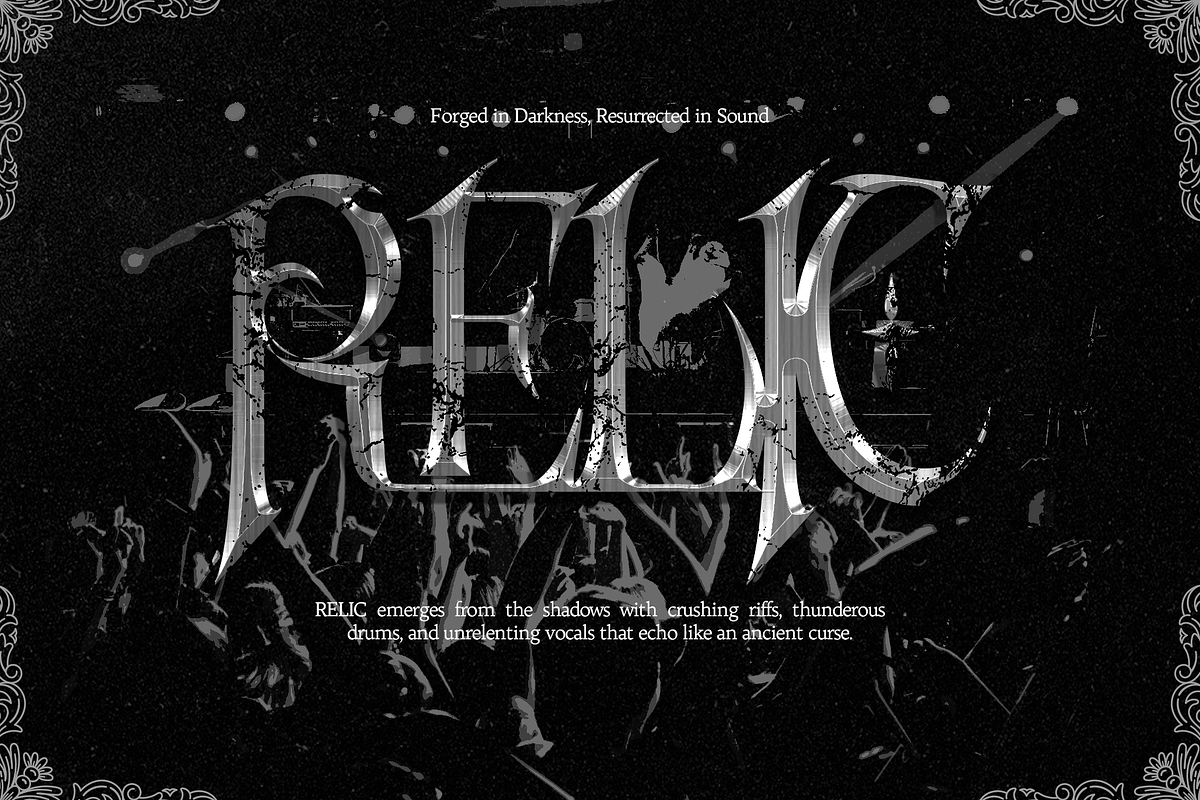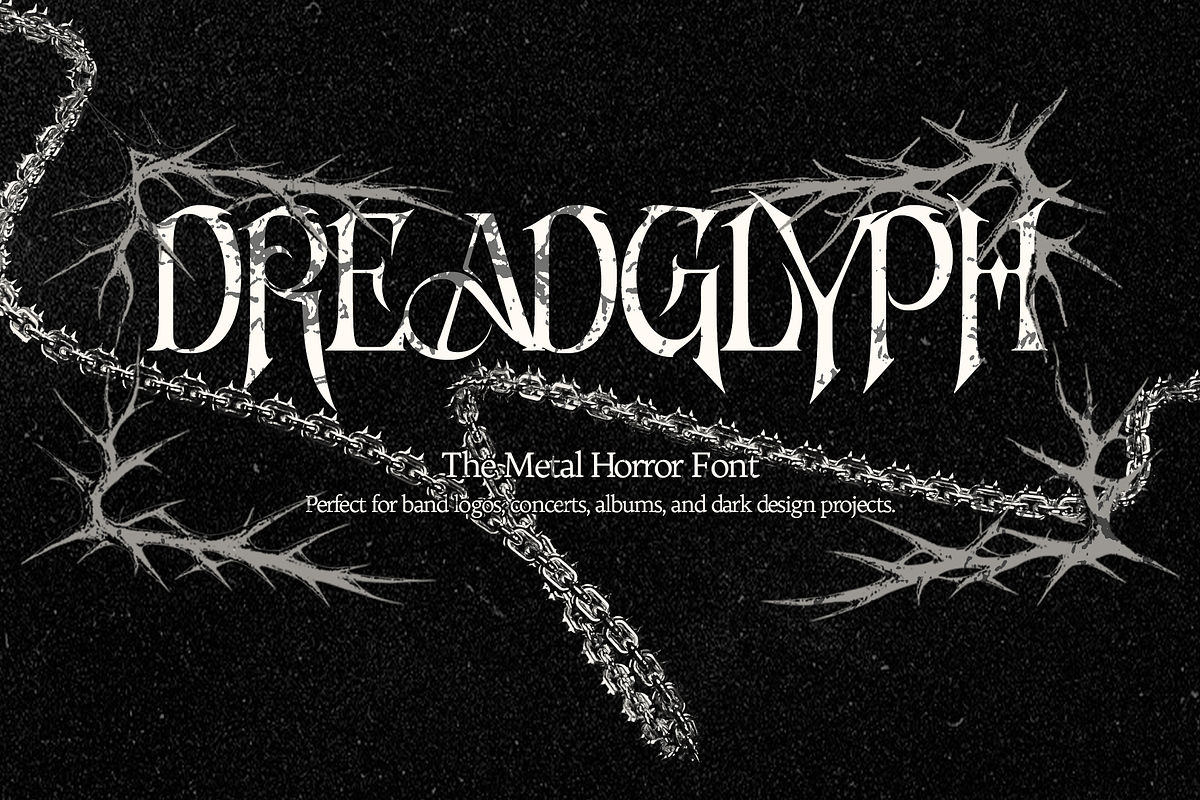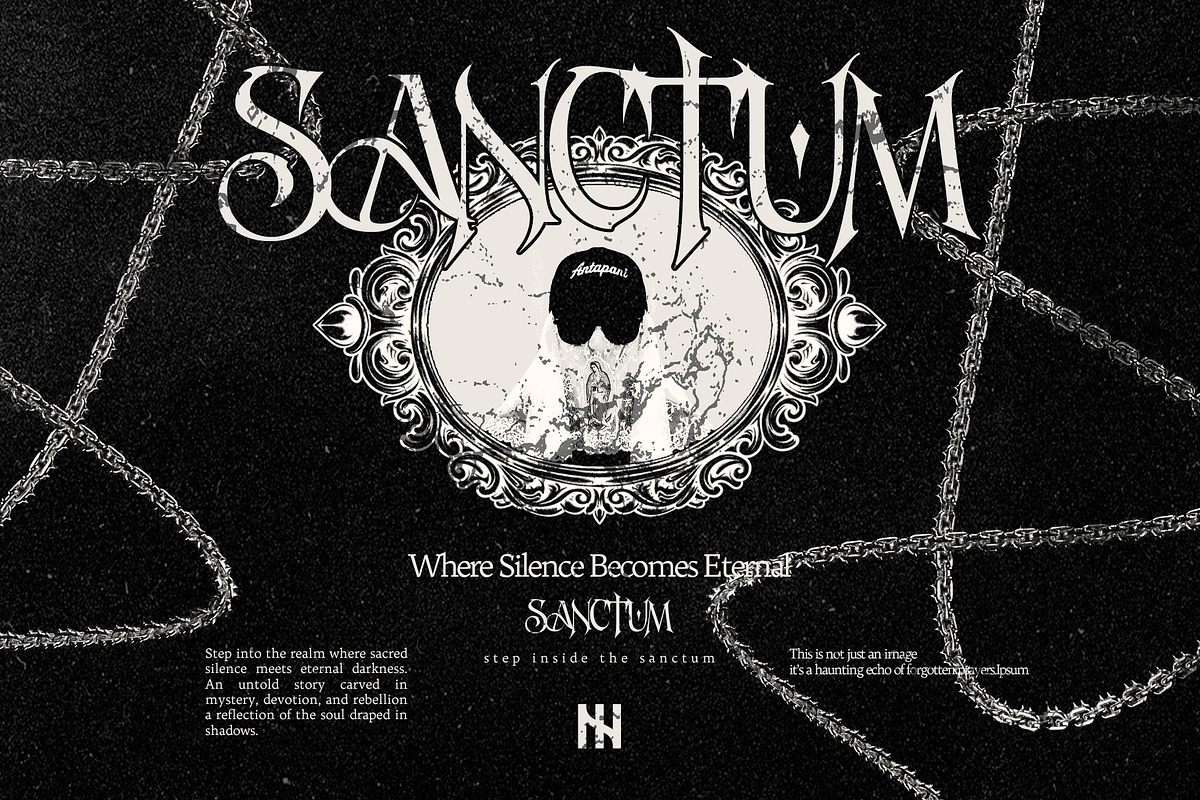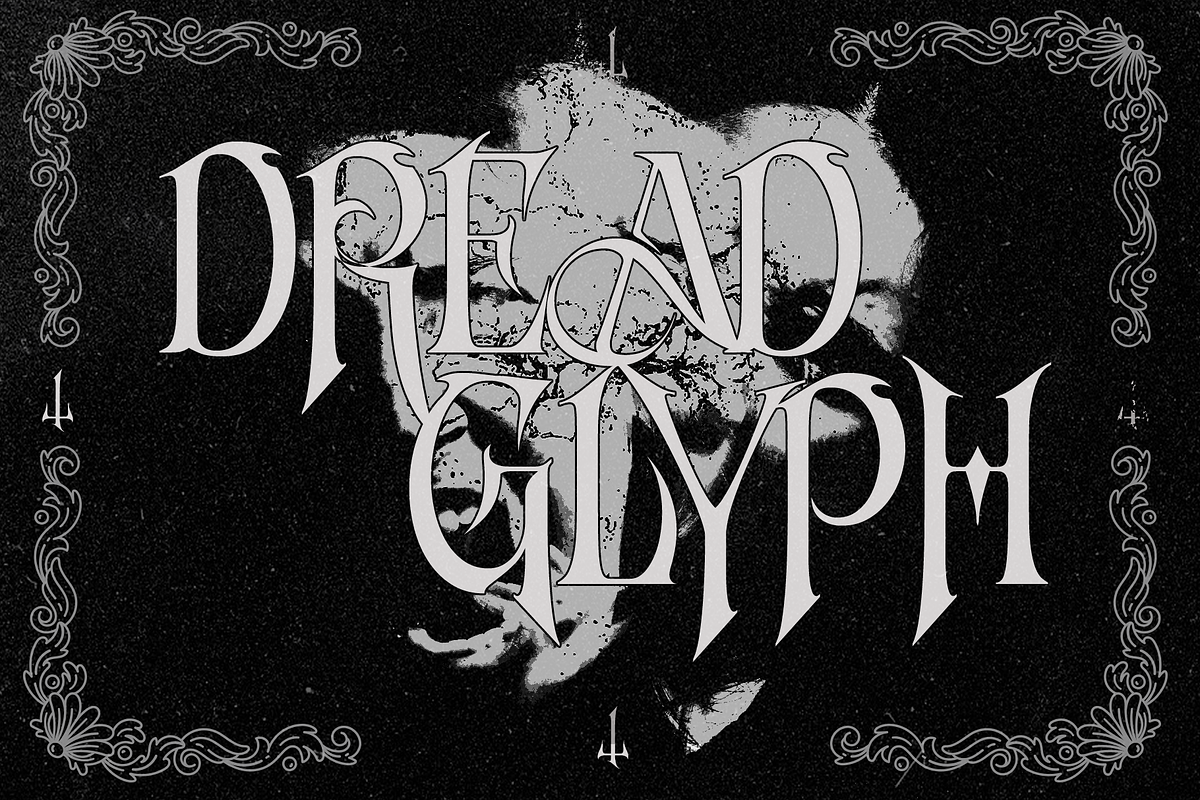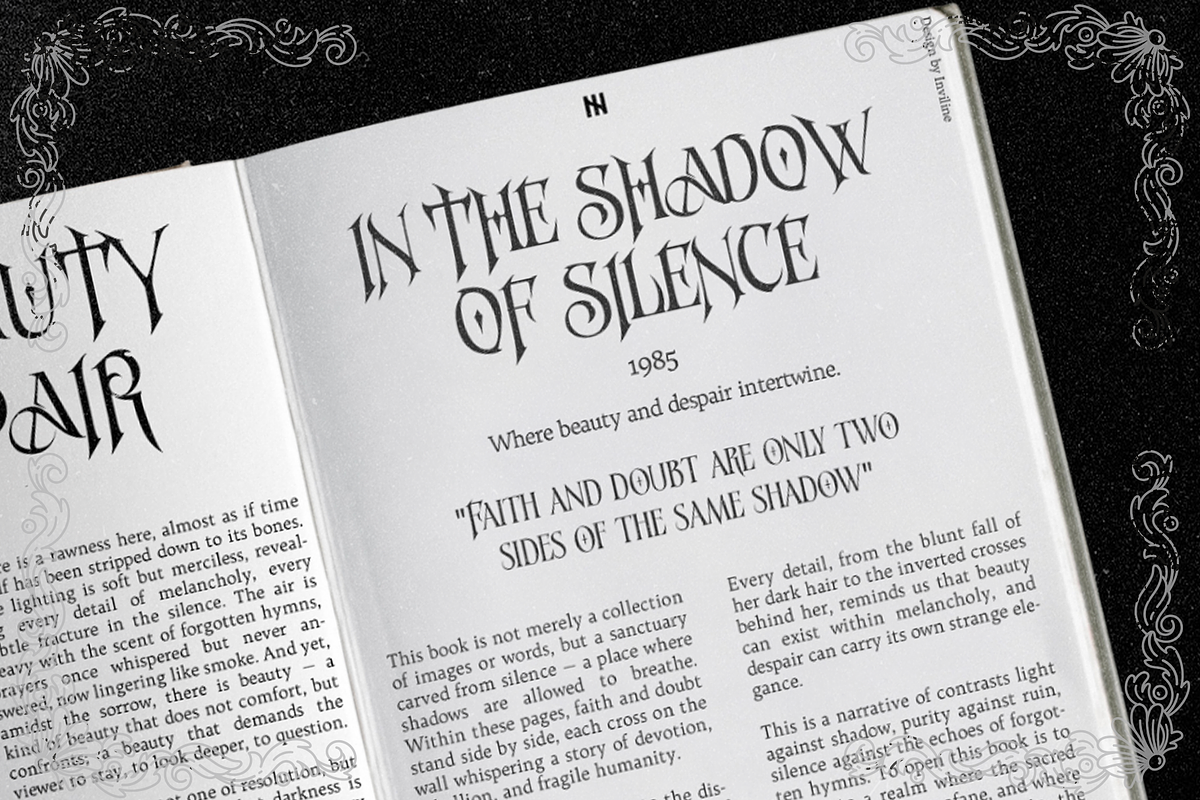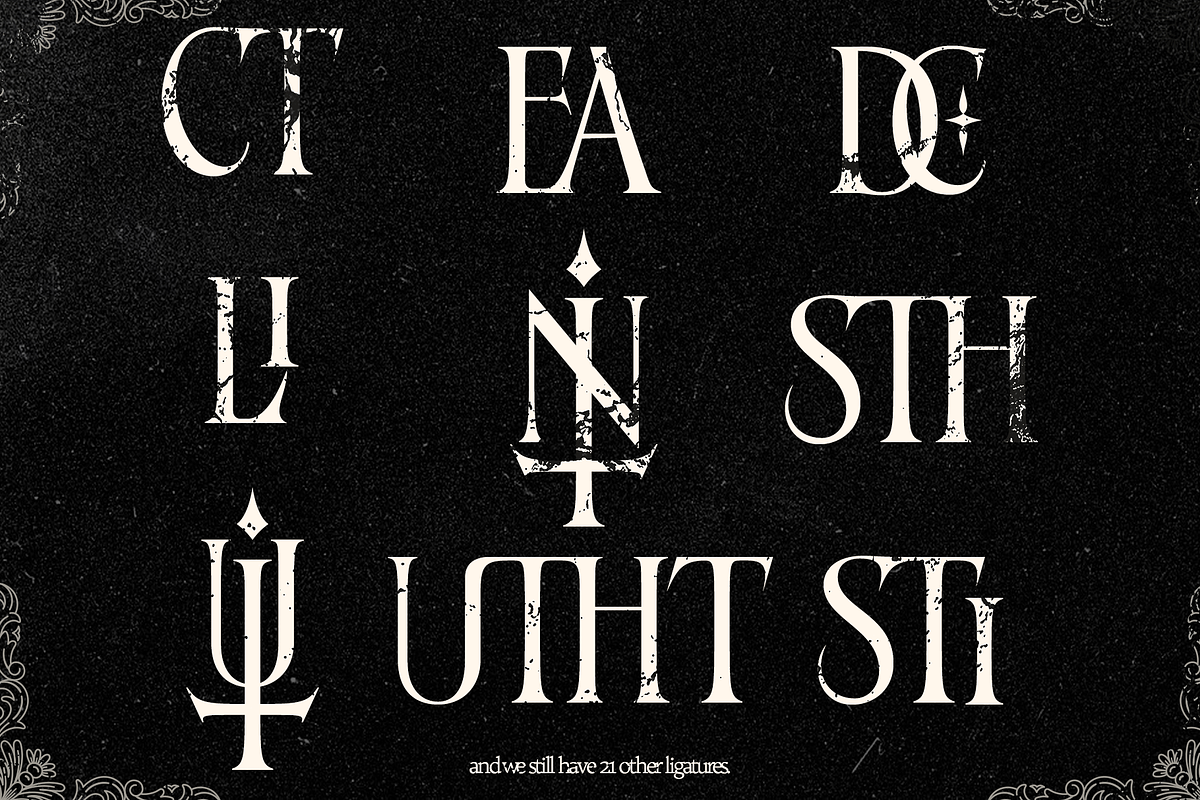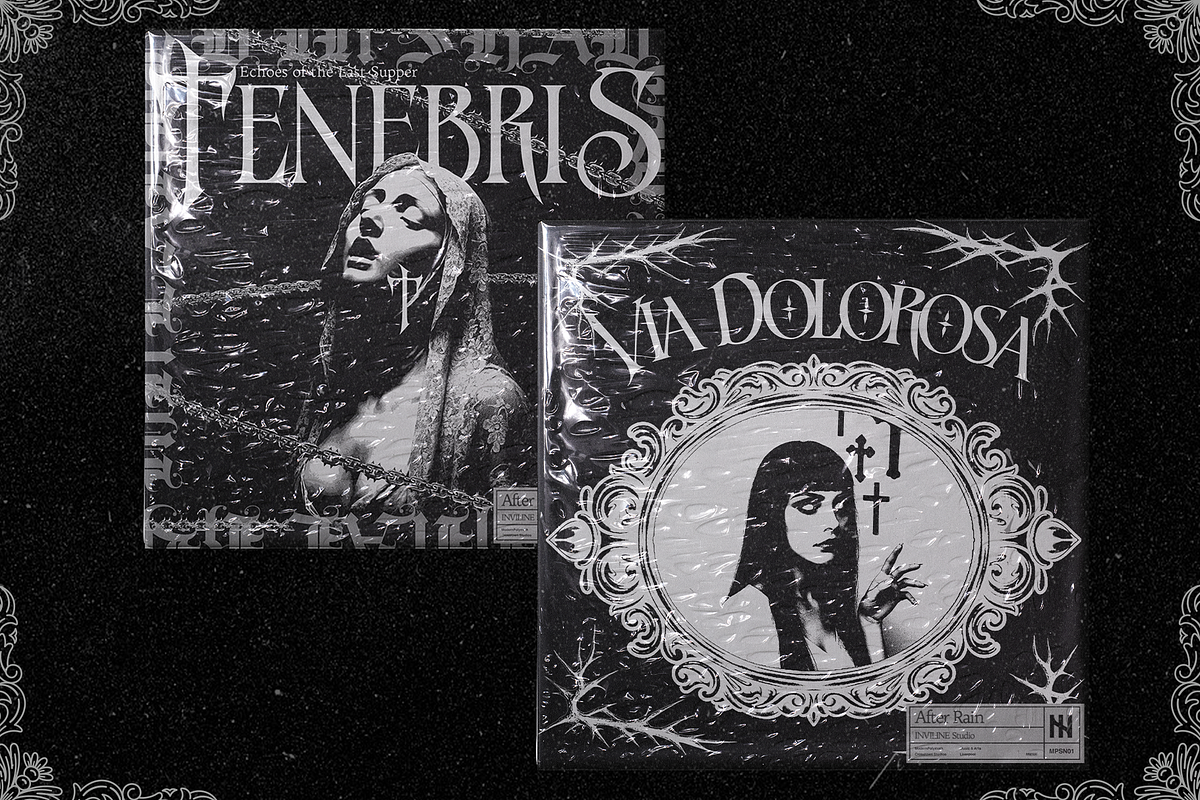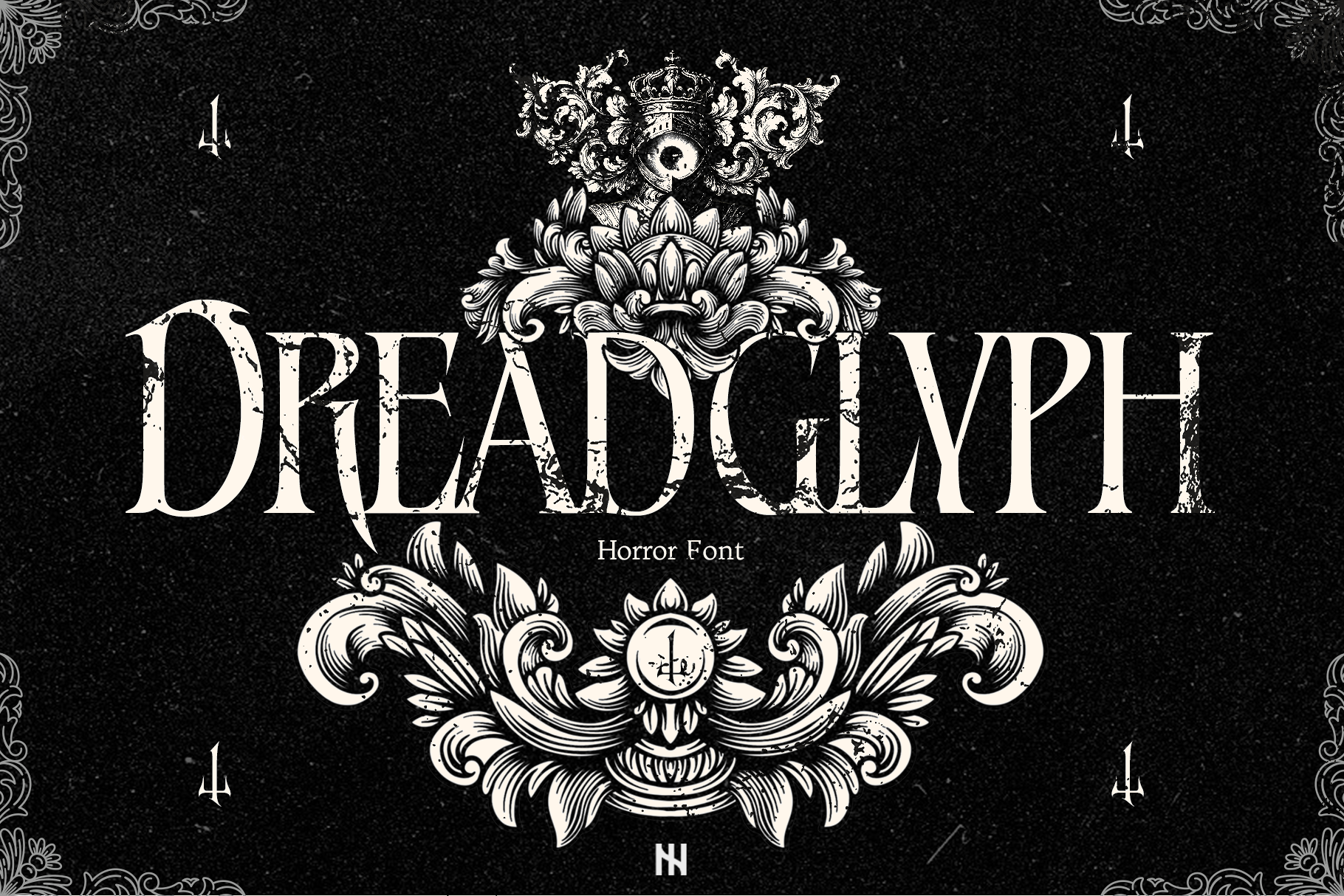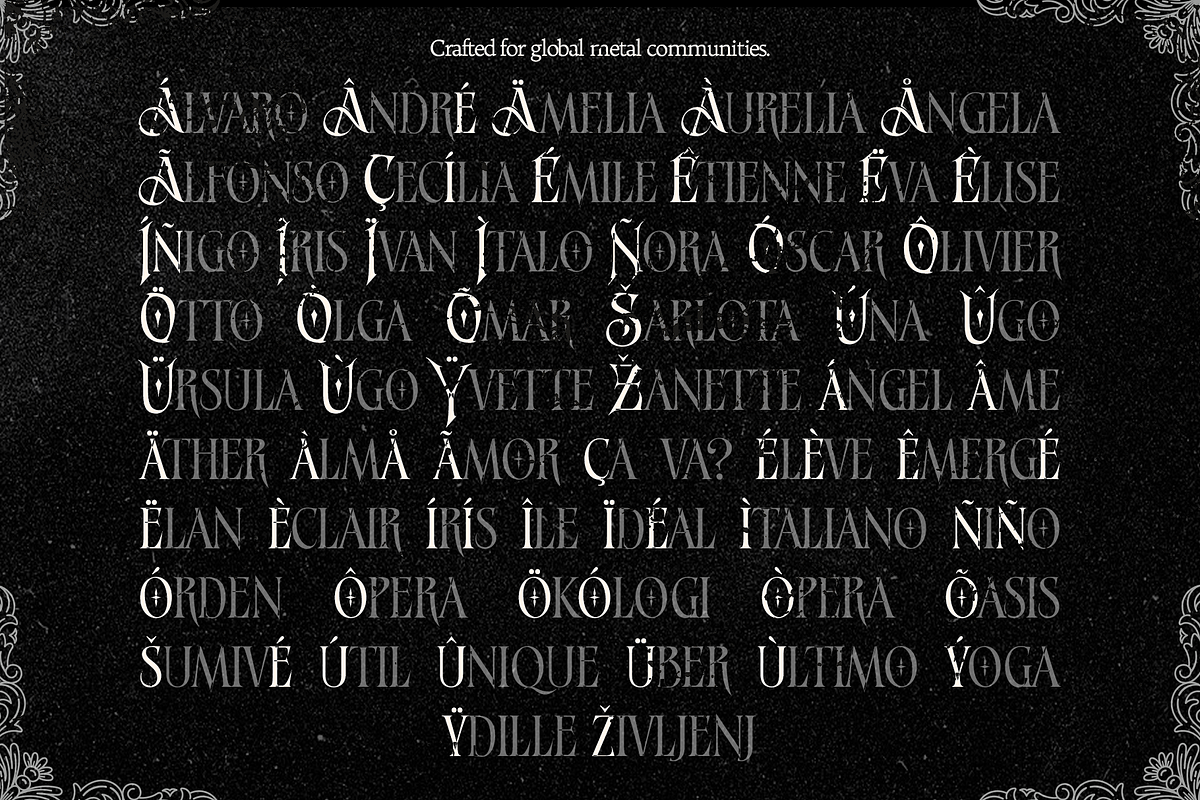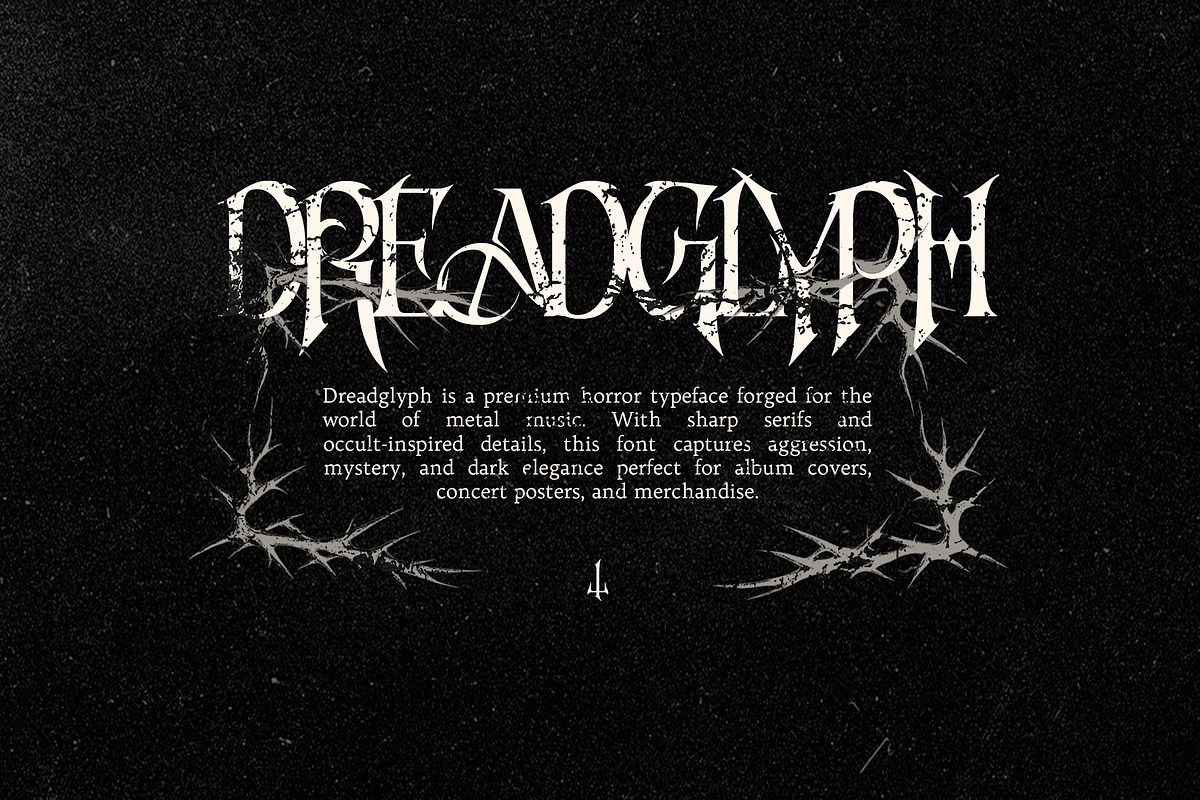
Dreadglyph – Metal Horror Typeface
Dreadglyph is a dark metal horror typeface crafted with sharp serifs, occult details, and aggressive forms. perfect for band logos, album covers, and brutal visual identities.
Dreadglyph – Metal Horror Typeface
Dreadglyph is a powerful horror typeface forged from darkness, inspired by black metal aesthetics, occult symbolism, and gothic ornamentation. Designed with razor-sharp serifs, distorted letterforms, and ritualistic details, this font embodies aggression, mystery, and raw energy.
Every glyph is carefully crafted to evoke a sense of chaos and elegance, making it ideal for designs that demand intensity and presence. Whether you're creating underground music visuals or dark editorial layouts, Dreadglyph delivers a haunting and unforgettable typographic voice.
- Uppercase & Lowercase Letters
- Ligatures (21+ combinations)
- Sharp & aggressive serif style
- Black metal & horror-inspired design
- Unique ligatures & alternates
- High contrast letterforms
- Decorative & expressive glyph shapes
- Strong visual impact for headlines
- Band Logos (Metal / Hardcore / Punk)
- Album Covers & EP Artwork
- Concert Posters & Flyers
- Merchandise Design (non-apparel safe context)
- Dark Branding & Identity
- Editorial / Zine Layout
- Tattoo & Alternative Culture Design